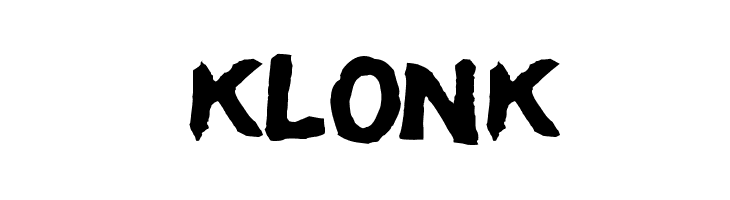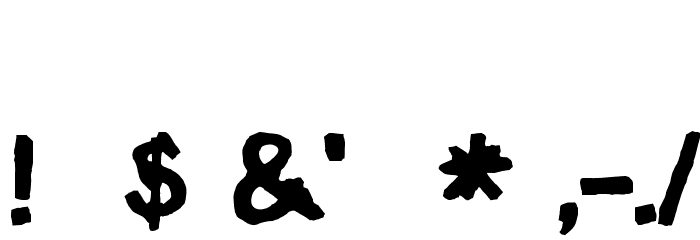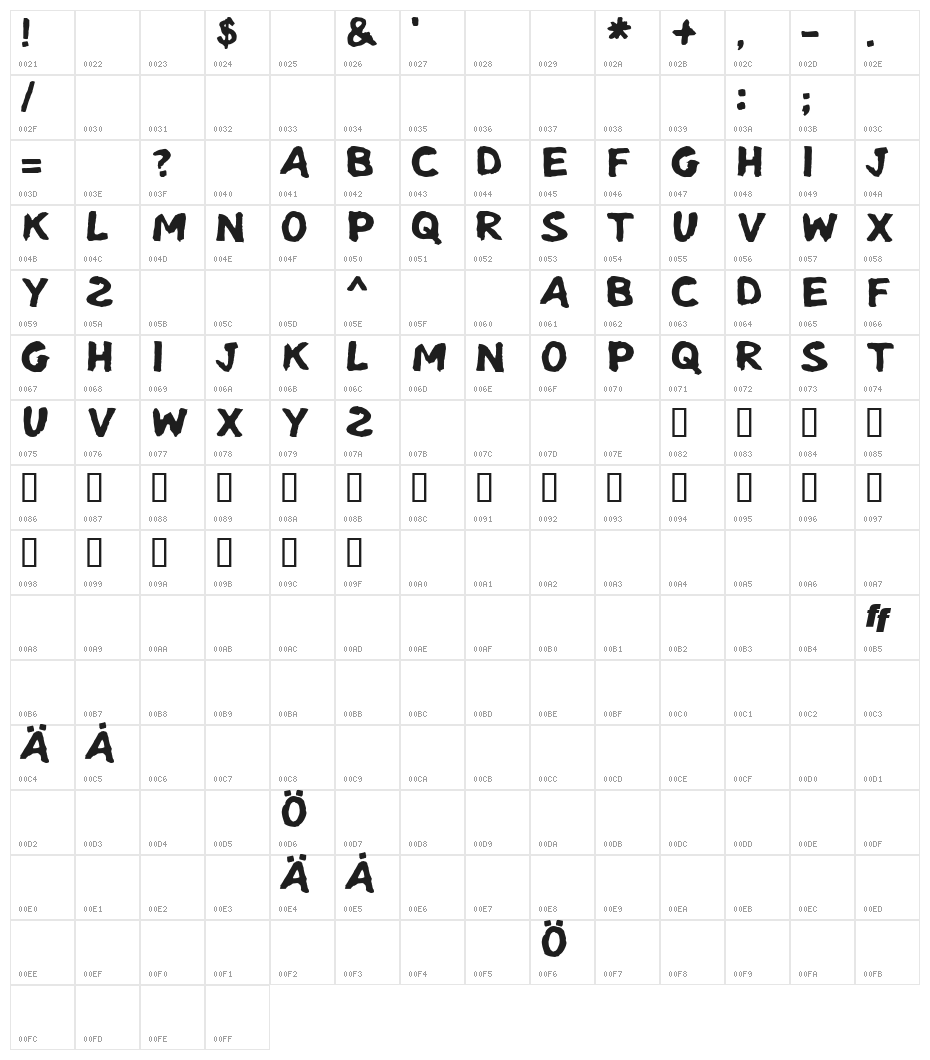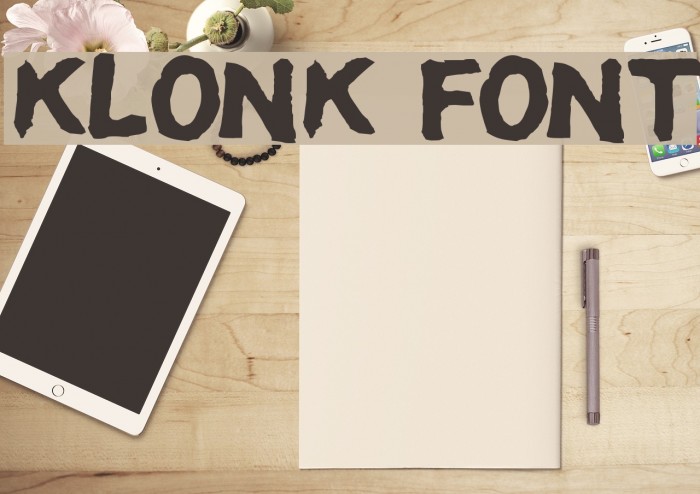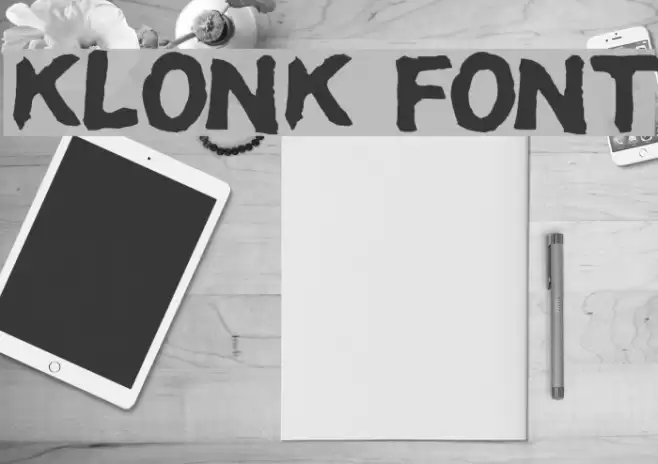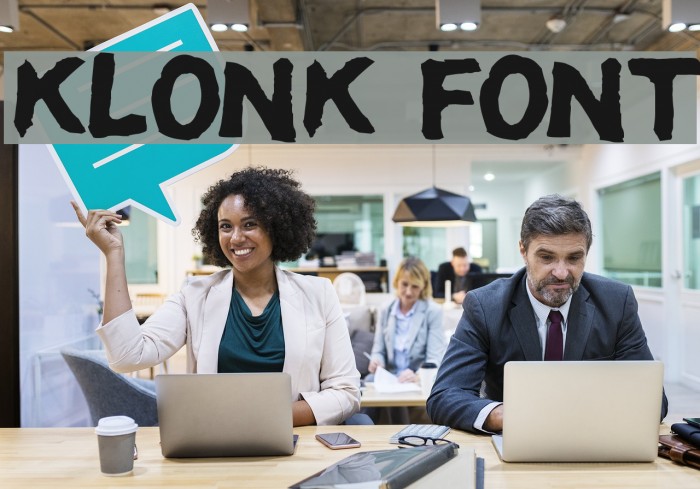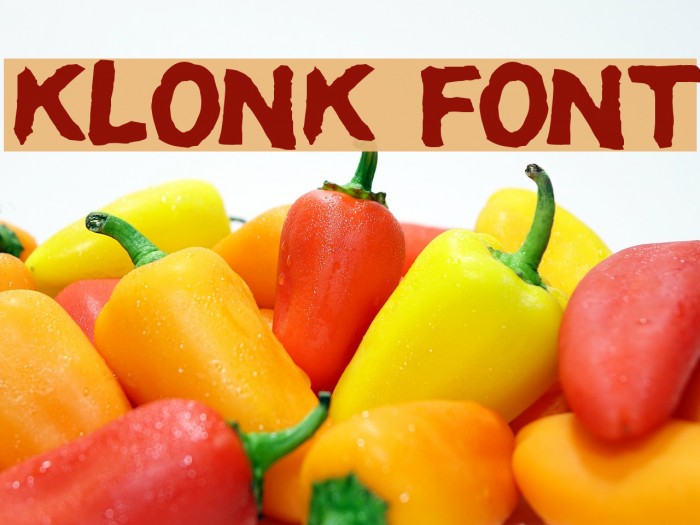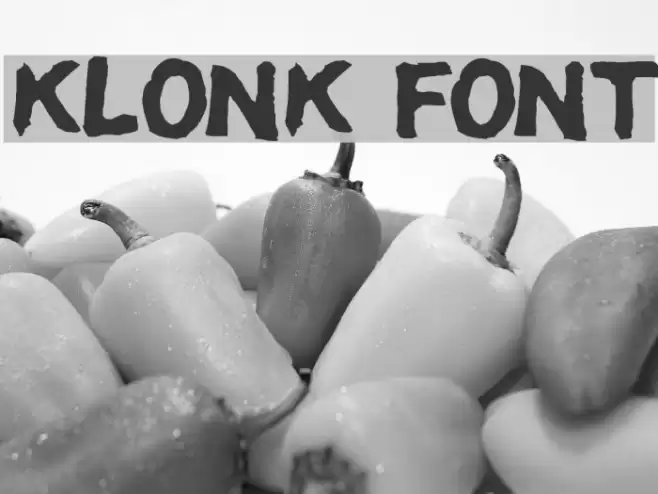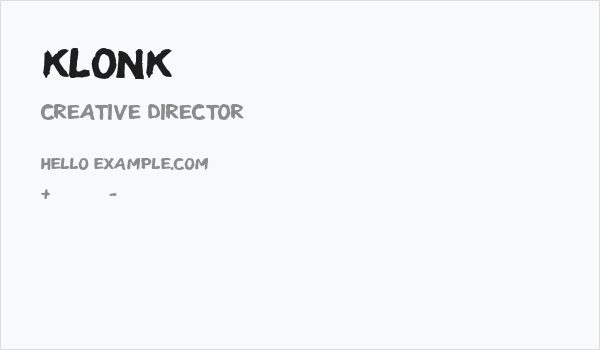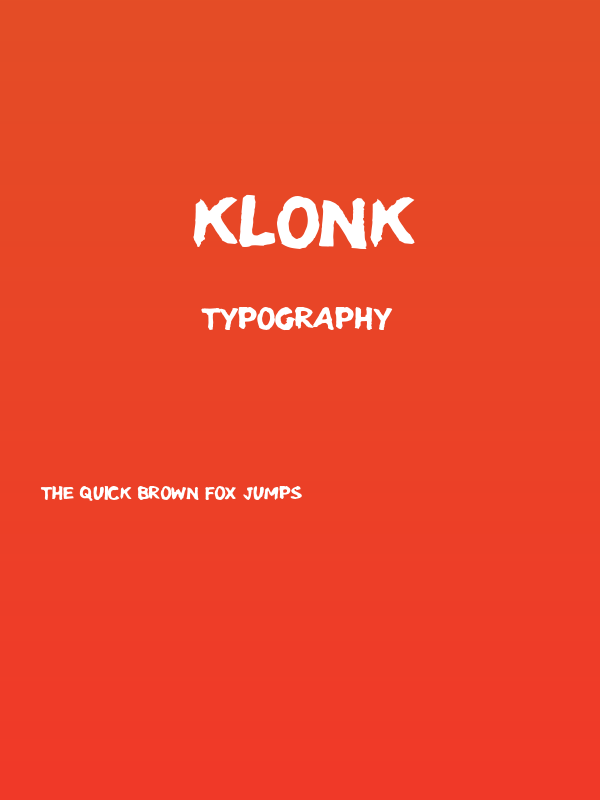
Klonk Font
Klonk Description
This font features a bold, hand-drawn style with a rough, textured appearance. The characters are uppercase, with a slightly irregular form that gives them a dynamic and energetic feel. The strokes are thick and uneven, adding to the hand-crafted aesthetic. The overall look is playful and informal, making it suitable for creative projects that require a personal touch. The font includes a full set of uppercase letters, numbers, and a selection of special characters, all maintaining the same rugged style. Its unique appearance makes it stand out, ideal for designs that aim to capture attention and convey a sense of fun and creativity.
| Overall Style | Playful, Creative |
| Use Case | Headlines, Posters, Creative Branding |
| Proposed Projects | Ideal for posters, children's book covers, creative branding, and playful graphic designs. |